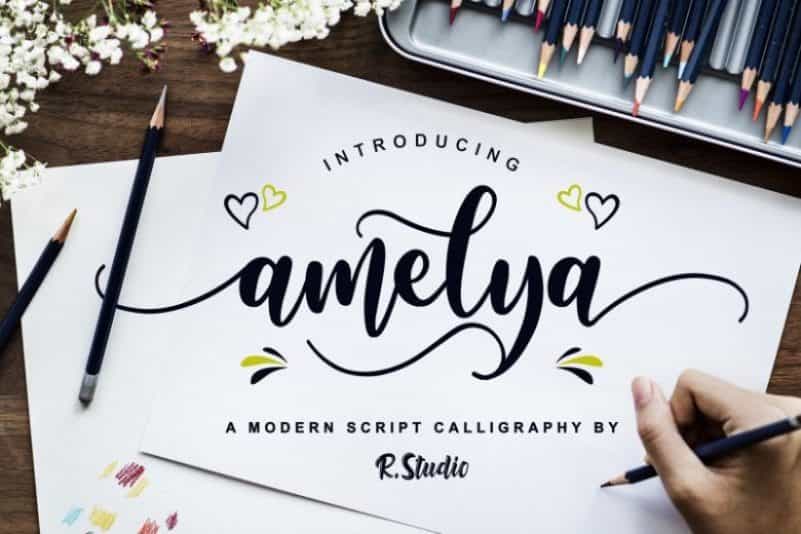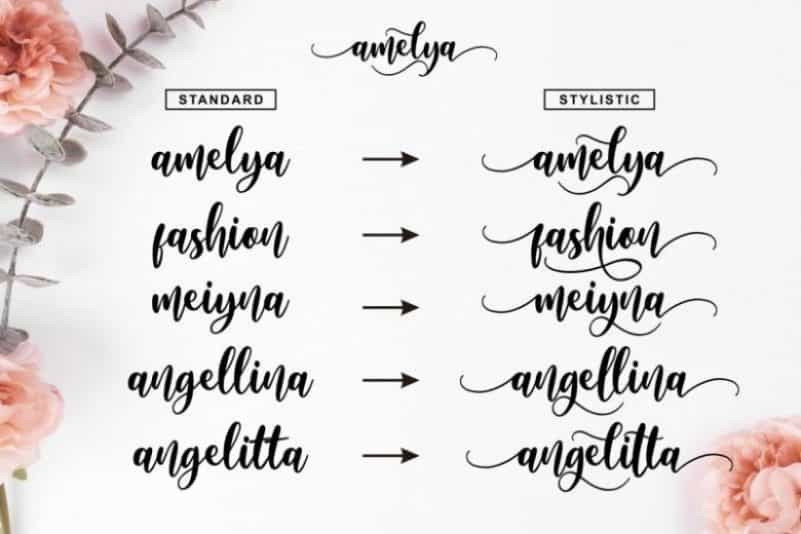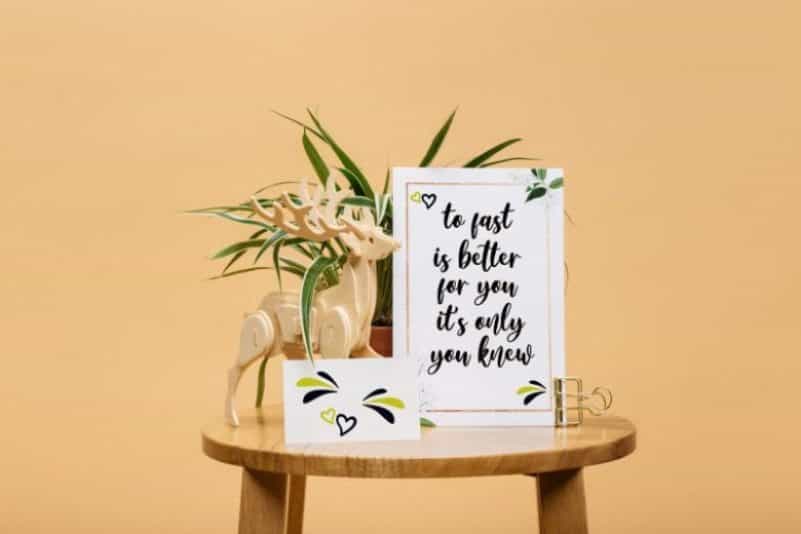
Discover Amelya Font, part of the Calligraphy collection—a versatile and unique font perfect for adding a personal touch to your projects. Download it for free and enjoy crafting designs with style, from invitations to social media posts. This font is available exclusively for personal use, giving you the freedom to create without limits. Unlock your creativity with Amelya Font today!
It is a modern handwritten calligraphy typeface, and Amelya Font has the characteristic that it dances up and down the baseline. that is accompanied with beautiful alternates. Ideal for logos, fashion, stationery, letterpress, magazines, menus, books, invitations, wedding / greeting cards, packaging, labels, apparel, marketing etc.